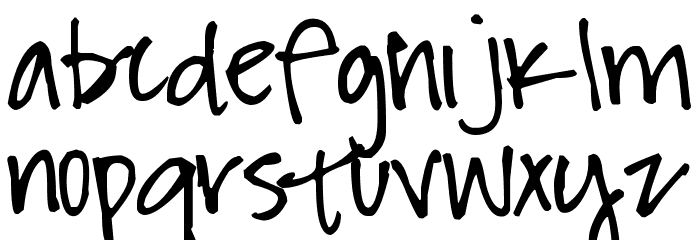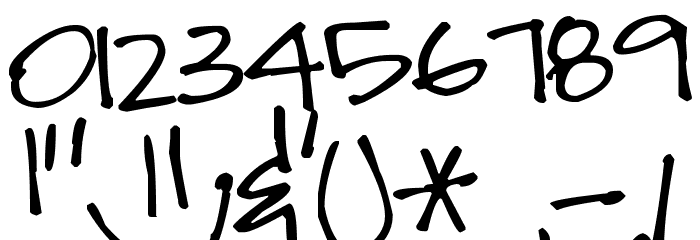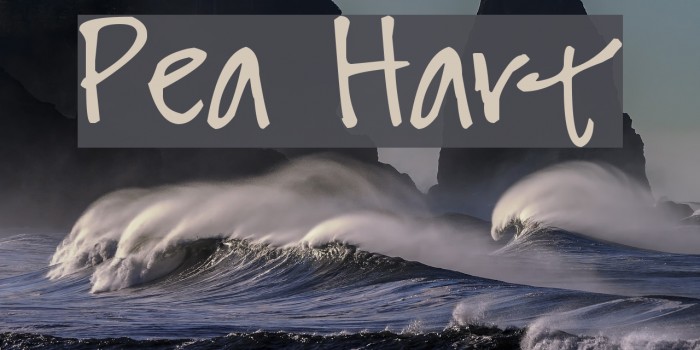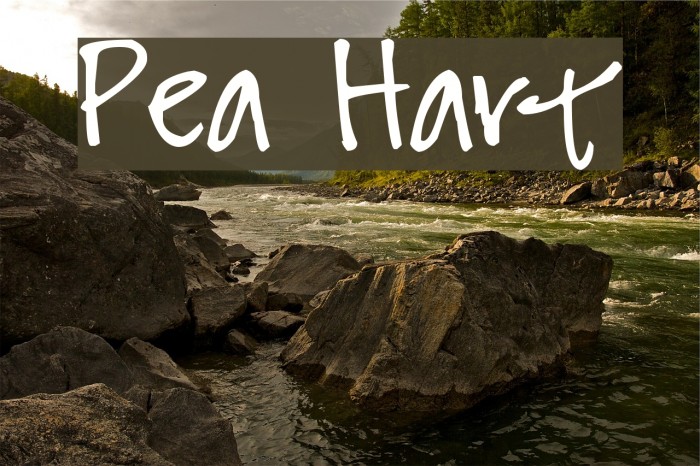
Pea Hart Font
This font exudes a playful and casual handwritten style, characterized by its irregular, flowing strokes that mimic natural handwriting. The letters are slightly tilted, adding to the informal and relaxed feel. The uppercase and lowercase letters maintain a consistent style, with rounded edges and varying stroke thickness that gives a dynamic and lively appearance. The numerals and special characters follow the same handwritten aesthetic, ensuring a cohesive look across all glyphs. This font is perfect for projects that require a personal touch, such as greeting cards, invitations, or casual branding.
A playful handwritten font with a casual, flowing style.
- Proposed Projects: Ideal for greeting cards, invitations, personal branding, and casual designs.
- Overall Style: Casual, Playful
- Use Case: Headlines, Informal text, Personal projects